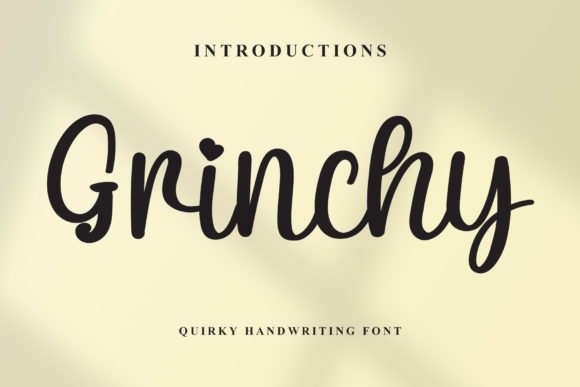
Introducing Grinchy - a mesmerizing script font that will turn your creative visions into captivating masterpieces. Whether you're crafting heartfelt wedding invitations, designing elegant greeting cards, or creating an unforgettable business card that leaves a lasting impression, Grinchy is your go-to choice for adding a touch of enchanting charm and sophistication.
With its whimsical curves and delicate strokes, Grinchy exudes an irresistible allure that commands attention. It's a font that effortlessly blends playfulness with a touch of classic elegance, making it the perfect choice for any design project that seeks to evoke a sense of joy, warmth, and timeless appeal.
Step into the world of Grinchy and let your imagination soar. Its vibrant spirit and versatility will inspire you to create designs that are both visually striking and emotionally resonant. Whether you're a seasoned graphic designer or simply looking to add a personal touch to your creative projects, Grinchy is the font that will unlock your full potential.
Immerse yourself in the enchanting world of Grinchy and discover a font that is not just a collection of letters but a gateway to endless creative possibilities. With its effortless charm and captivating presence, Grinchy will transform your designs into works of art that speak volumes without uttering a single word.